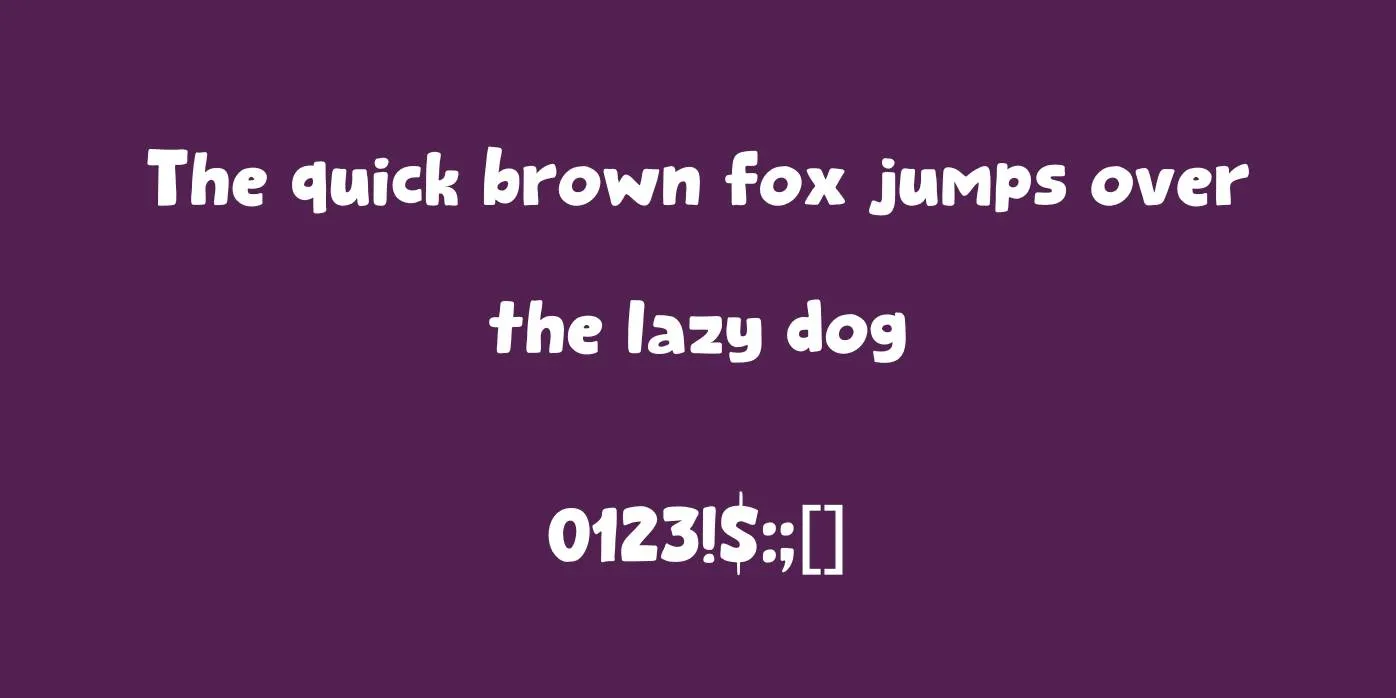
≠Square Beat Font
It is a very unique and fancy font. Square Beat Font was designed by David Kerkhoff. Copyrights © David Kerkhoff. It contains 159 characters, 126 glyphs, and 1000 units per Em. It allows embedding rights for editing only.
The weight of the font is Extra- Bold and the Width of the font is Medium (normal). It follows directions from left to right glyphs including neutrals. The Pattern nature of this font is regular. It is a very fancy font and provides the facility of an online generator tool to use copy and paste.